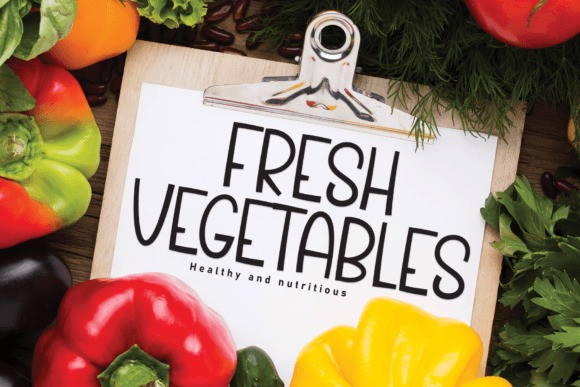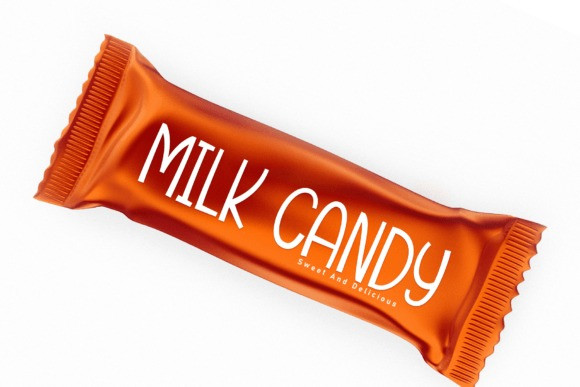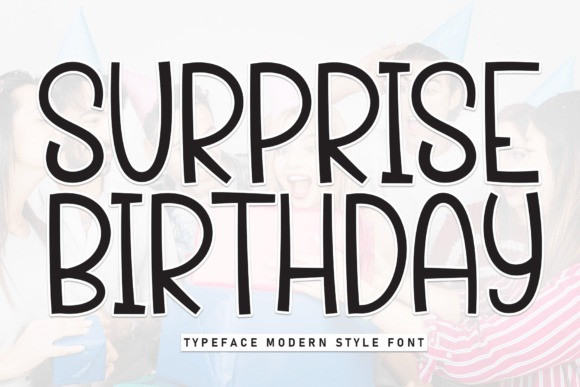
Surprise Birthday Font
Surprise Birthday Font is a sweet and friendly handwritten display font. Cute and fun, this font is ideal for writing wedding invitations, cards, or any other design that might need a fun touch!